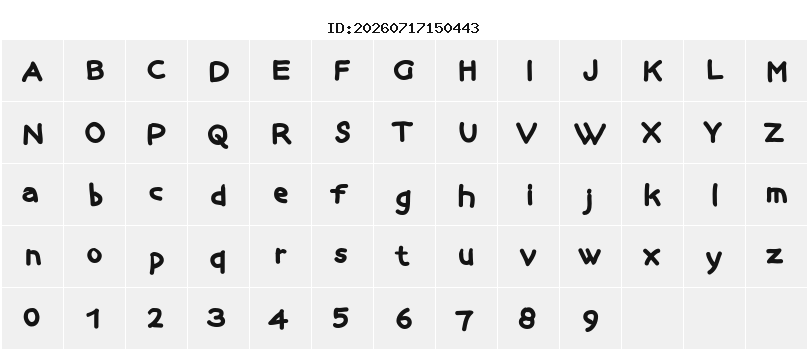
• Font Name: Blackredis
• Full Font Name: Blackredis
Blackredis.ttf is a modern, elegant sans-serif font designed for ultimate readability and visual harmony. Perfect for branding, headlines, web design, and print materials.